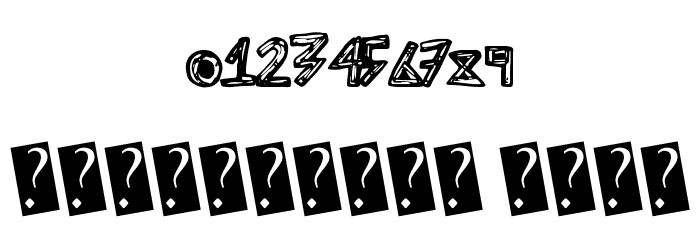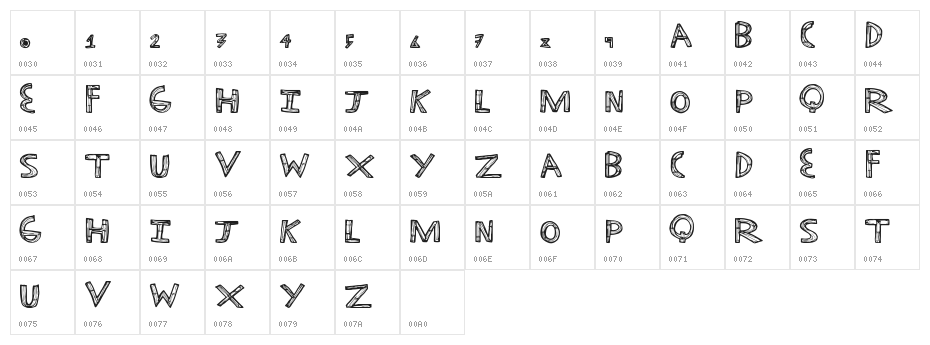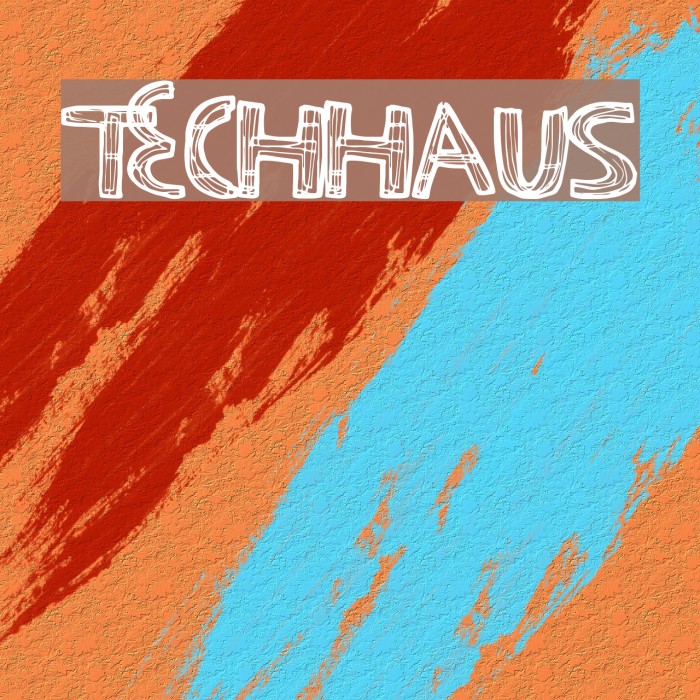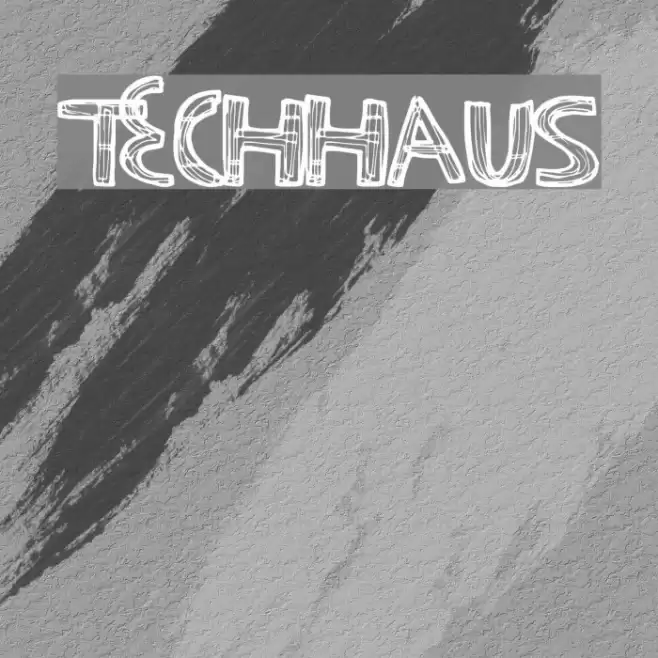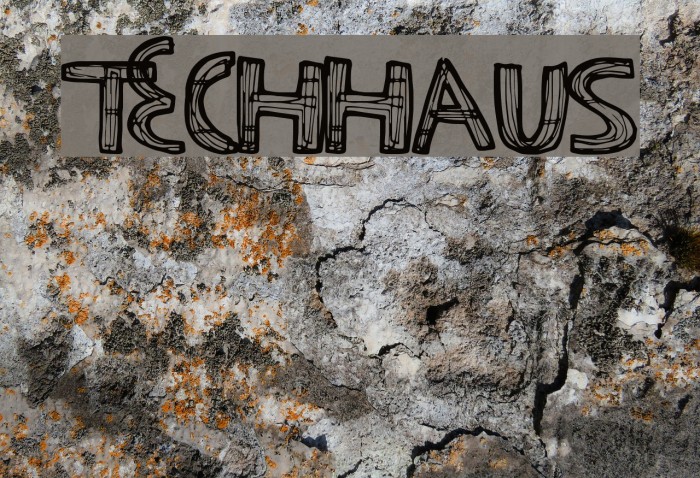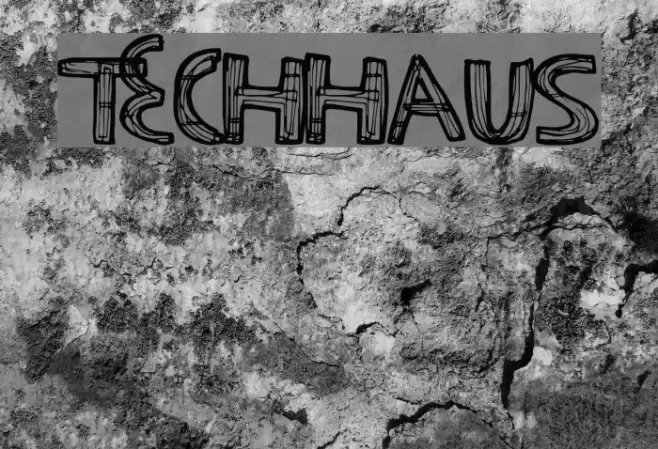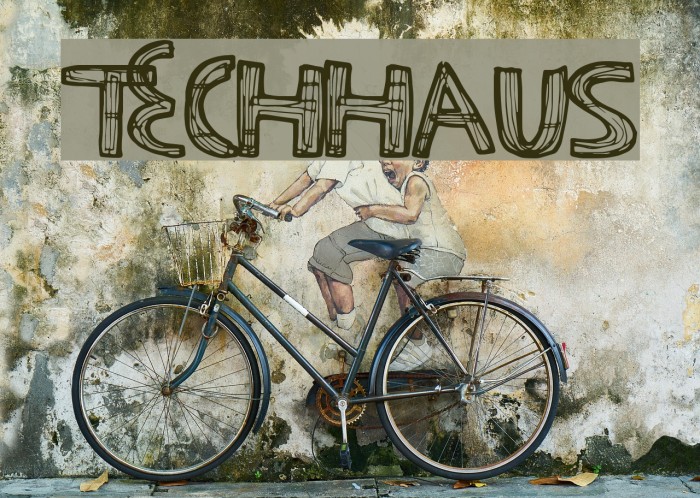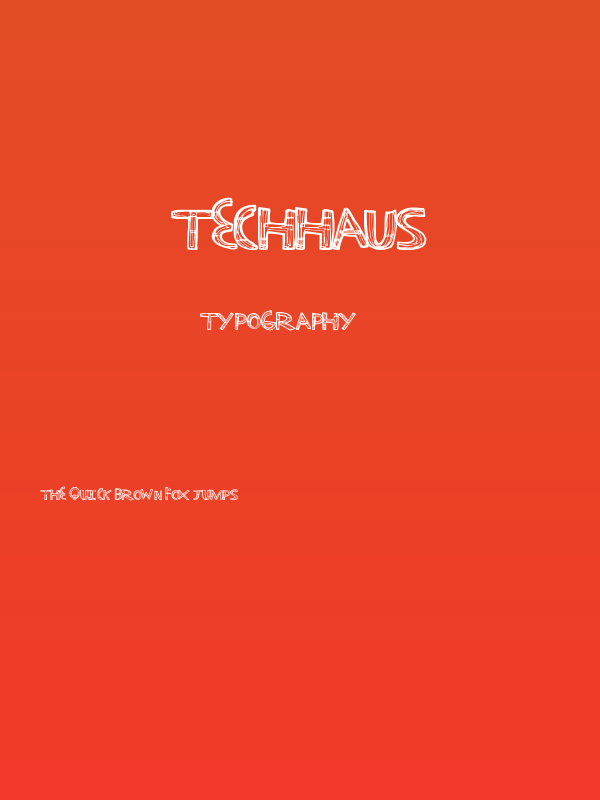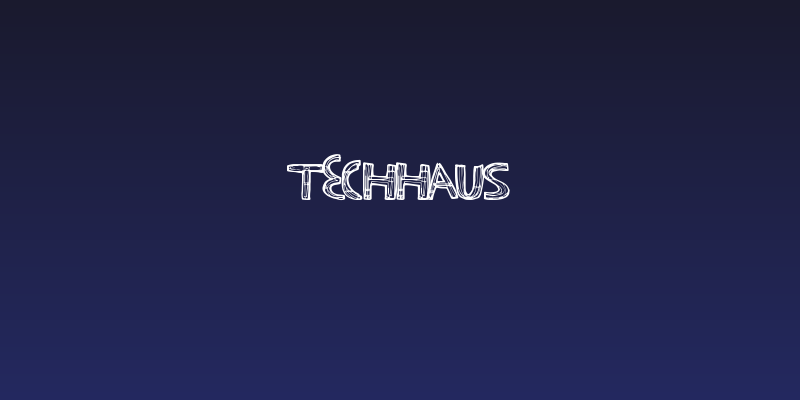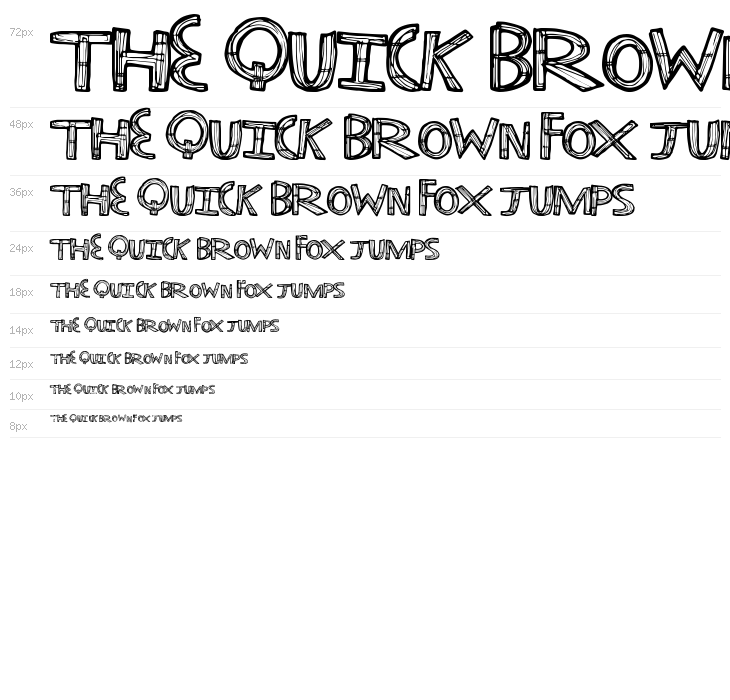
TechHaus Font
TechHaus Description
This font features a unique, hand-drawn style with a sketch-like appearance. Each character is outlined with a double line, creating a sense of depth and texture. The letters are uppercase and lowercase, with numbers and special characters included. The design is playful and artistic, making it stand out with its irregular, yet structured form. The font's lines are bold, yet the overall look maintains a casual and approachable feel. It is suitable for creative projects that require a distinctive and eye-catching typeface.
| Overall Style | Artistic, Playful |
| Proposed Projects | Ideal for posters, children's books, creative branding, and artistic designs. |